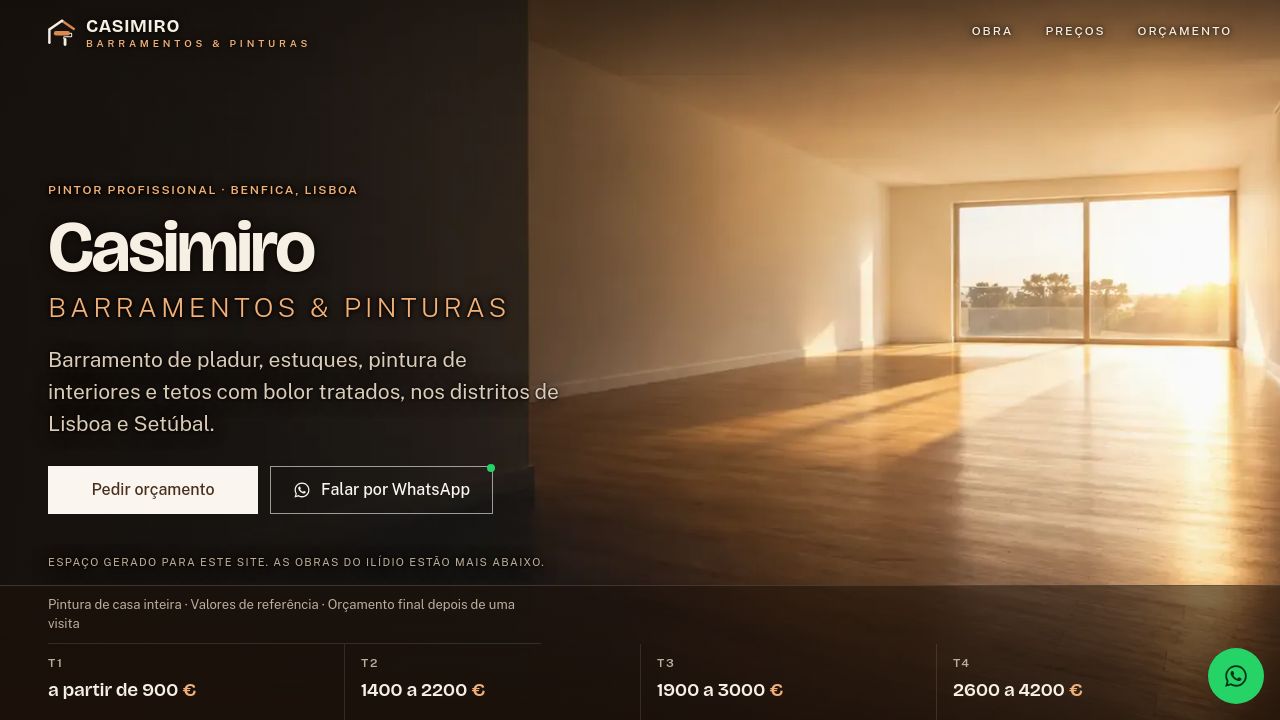
Casimirodecor.com uses Public Sans and Bricolage Grotesque as its main typefaces. 2 fonts detected, last checked Sep 29, 2026.
At casimirodecor.com, the choice of typography plays a crucial role in conveying the brand's expertise in interior painting and drywall finishing. The use of Public Sans, available in weights from 100 to 900, suggests clarity and versatility, while Bricolage Grotesque, with weights ranging from 200 to 800, adds a unique character that reflects the brand's attention to detail. Together, these fonts enhance the visual identity and resonate with clients seeking quality services in Lisbon and Setúbal.
Casimirodecor.com primarily uses Public Sans and Bricolage Grotesque. Public Sans is available in weights from 100 to 900, while Bricolage Grotesque ranges from 200 to 800.
Public Sans is known for its clean and geometric design, making it versatile for various applications. It offers a range of weights, allowing for flexibility in visual hierarchy.
Bricolage Grotesque is available in weights from 200 to 800. This range allows designers to create a strong visual impact while maintaining a cohesive look.
There are no specified fallback fonts on casimirodecor.com, indicating a strong preference for the primary fonts, Public Sans and Bricolage Grotesque.